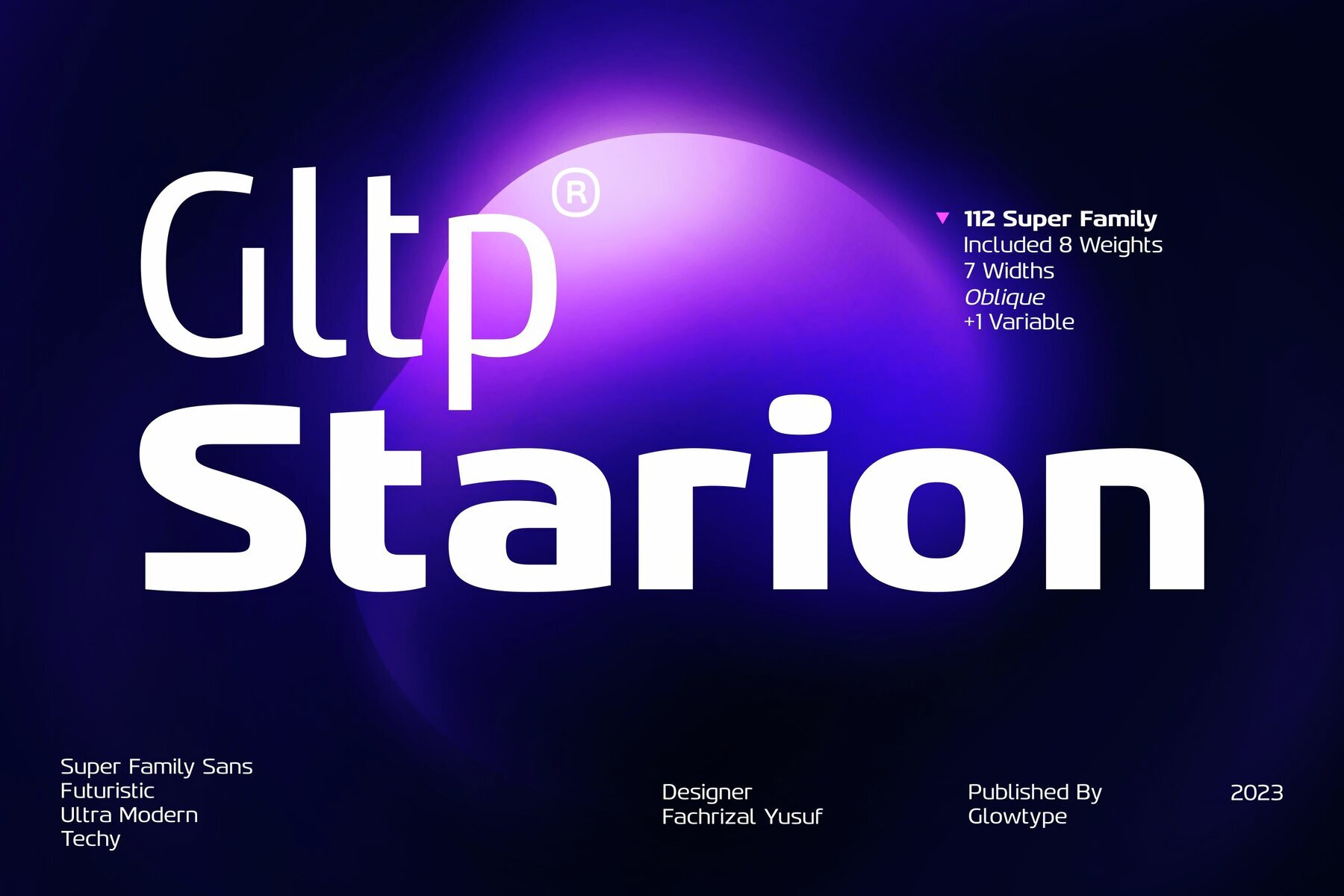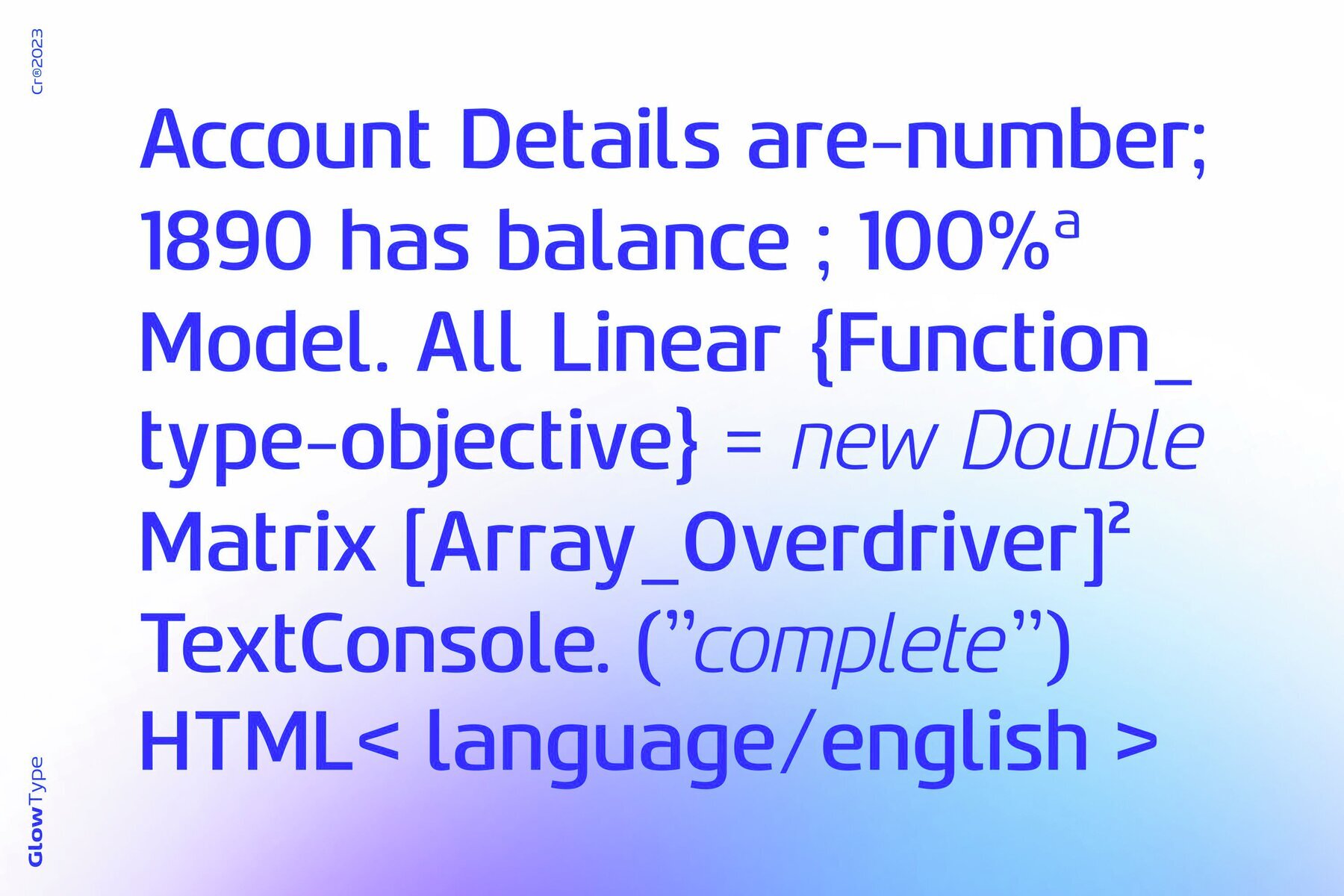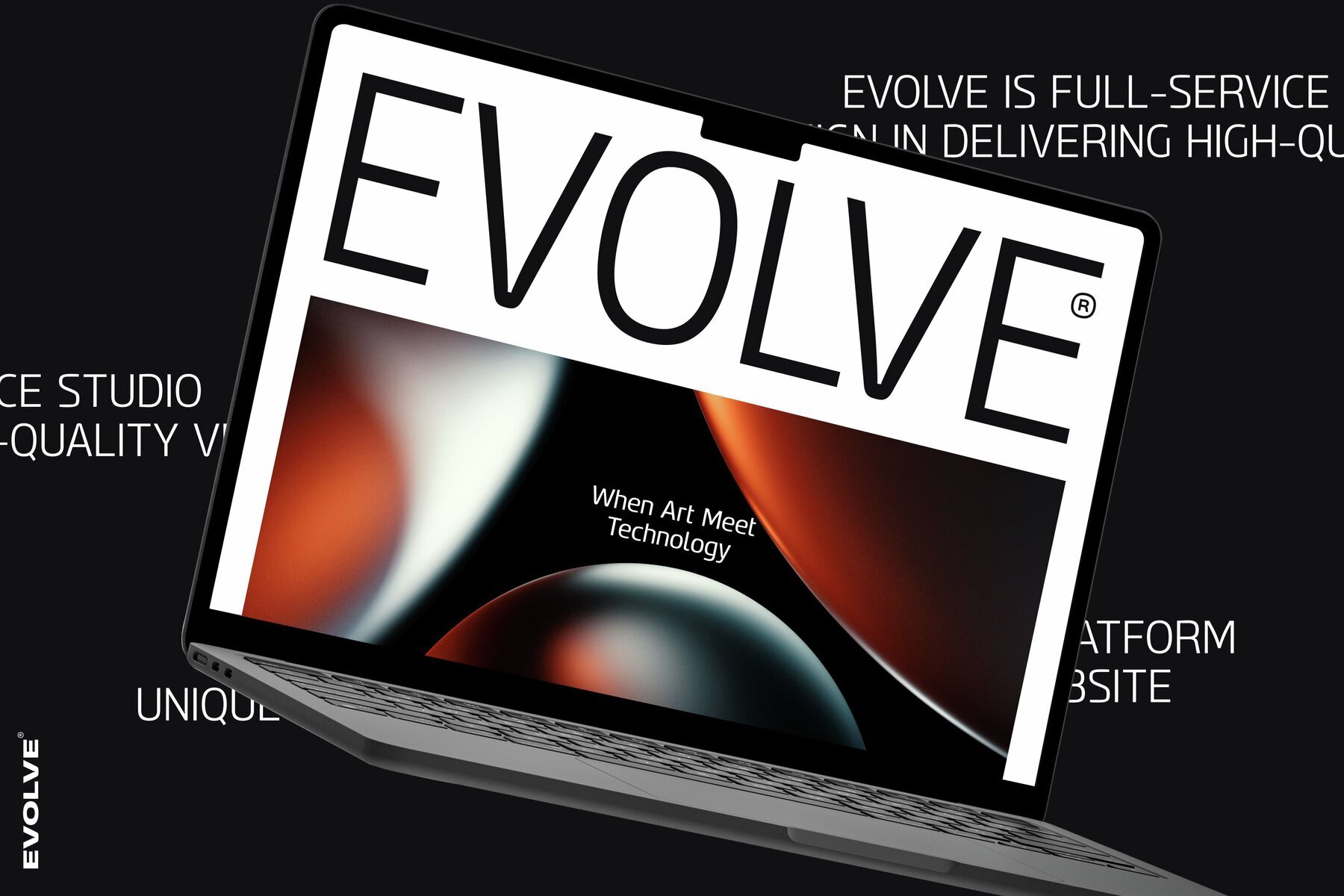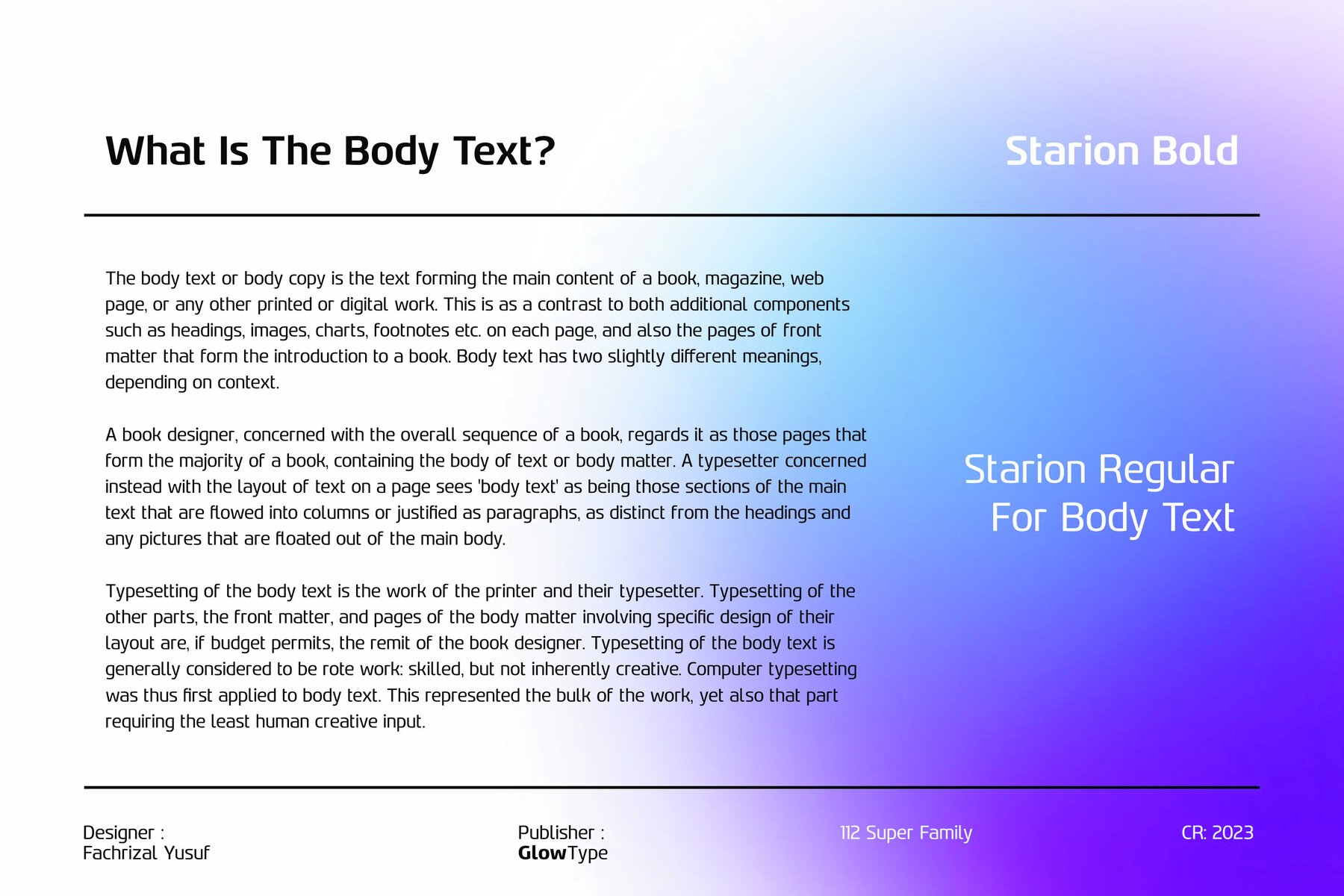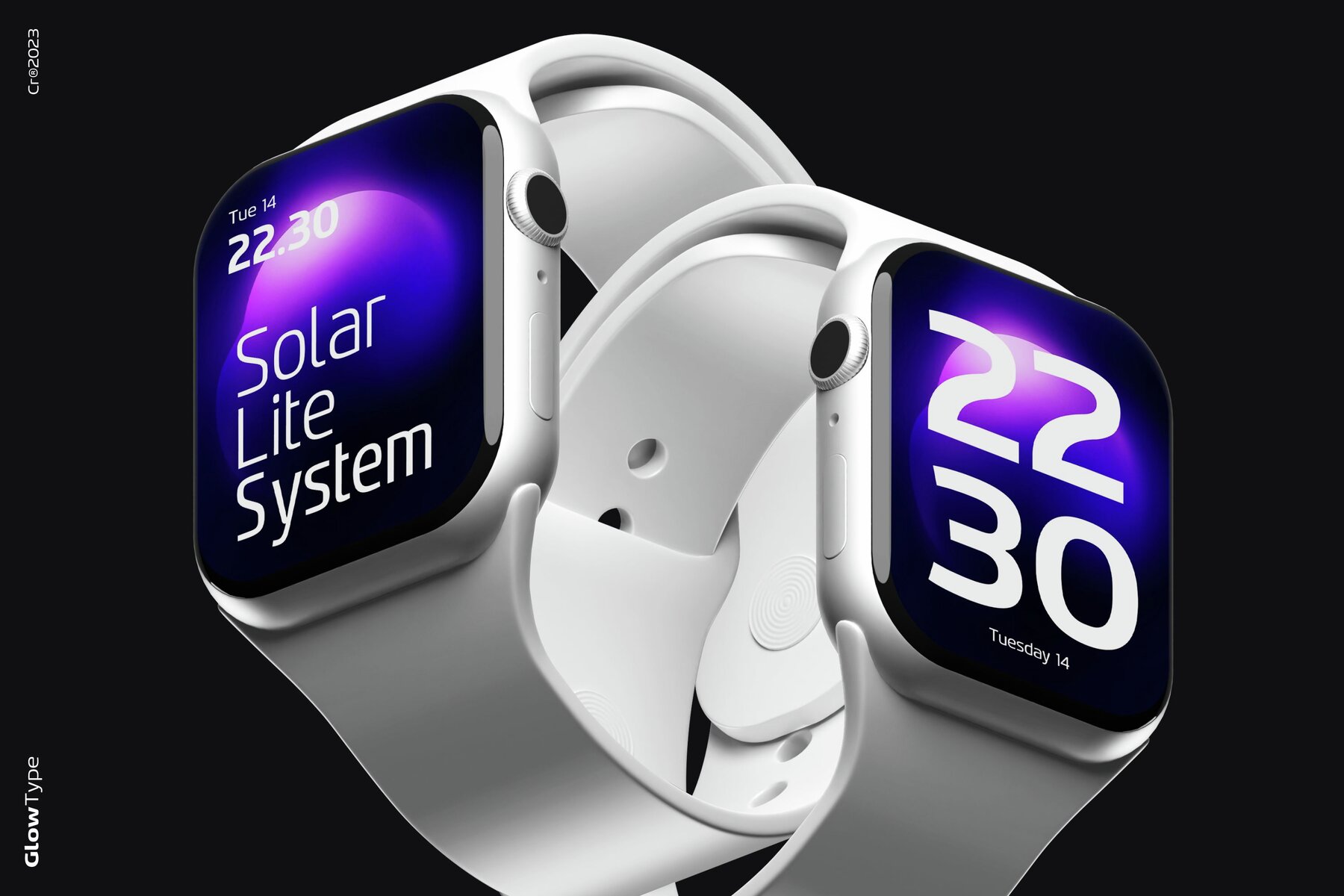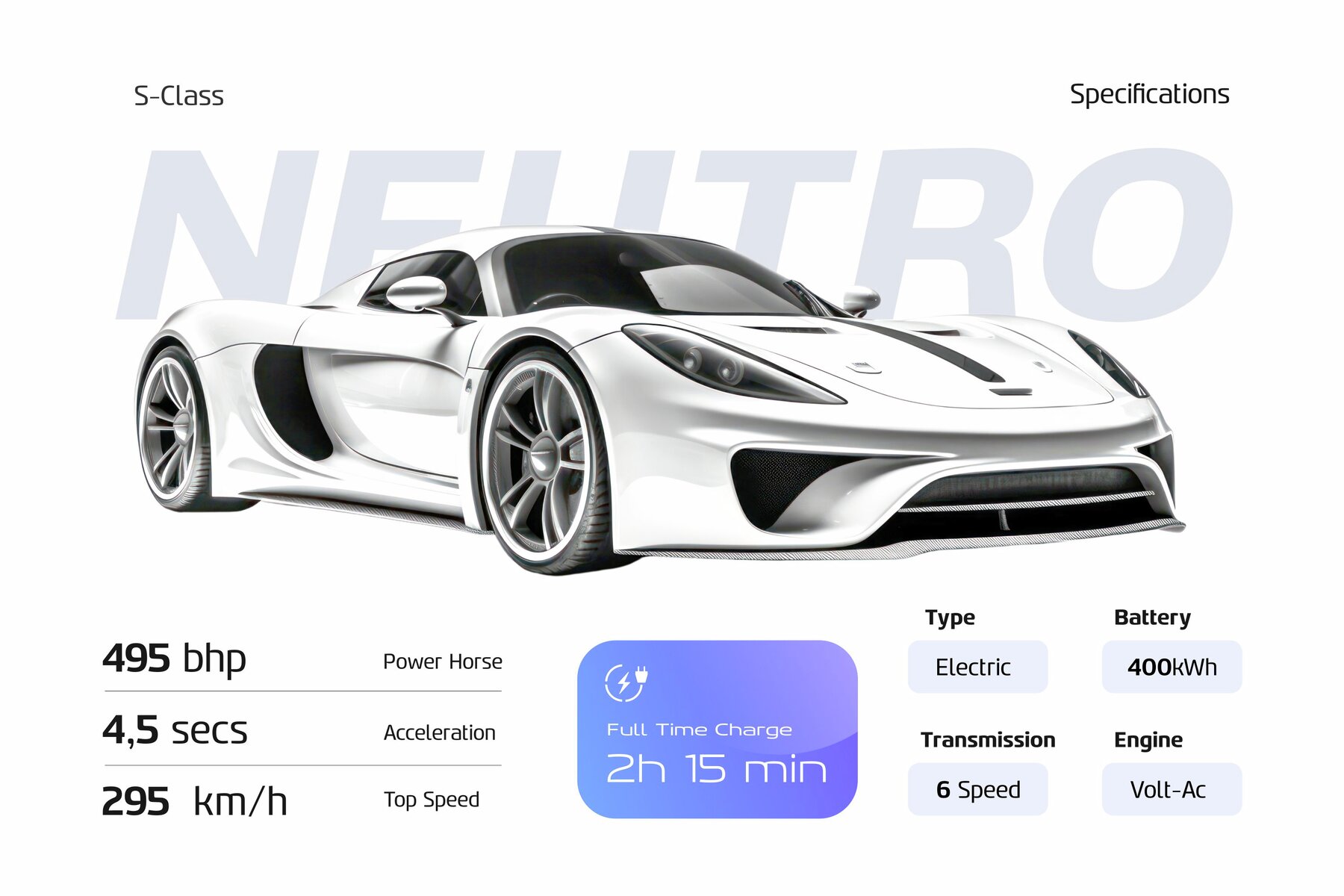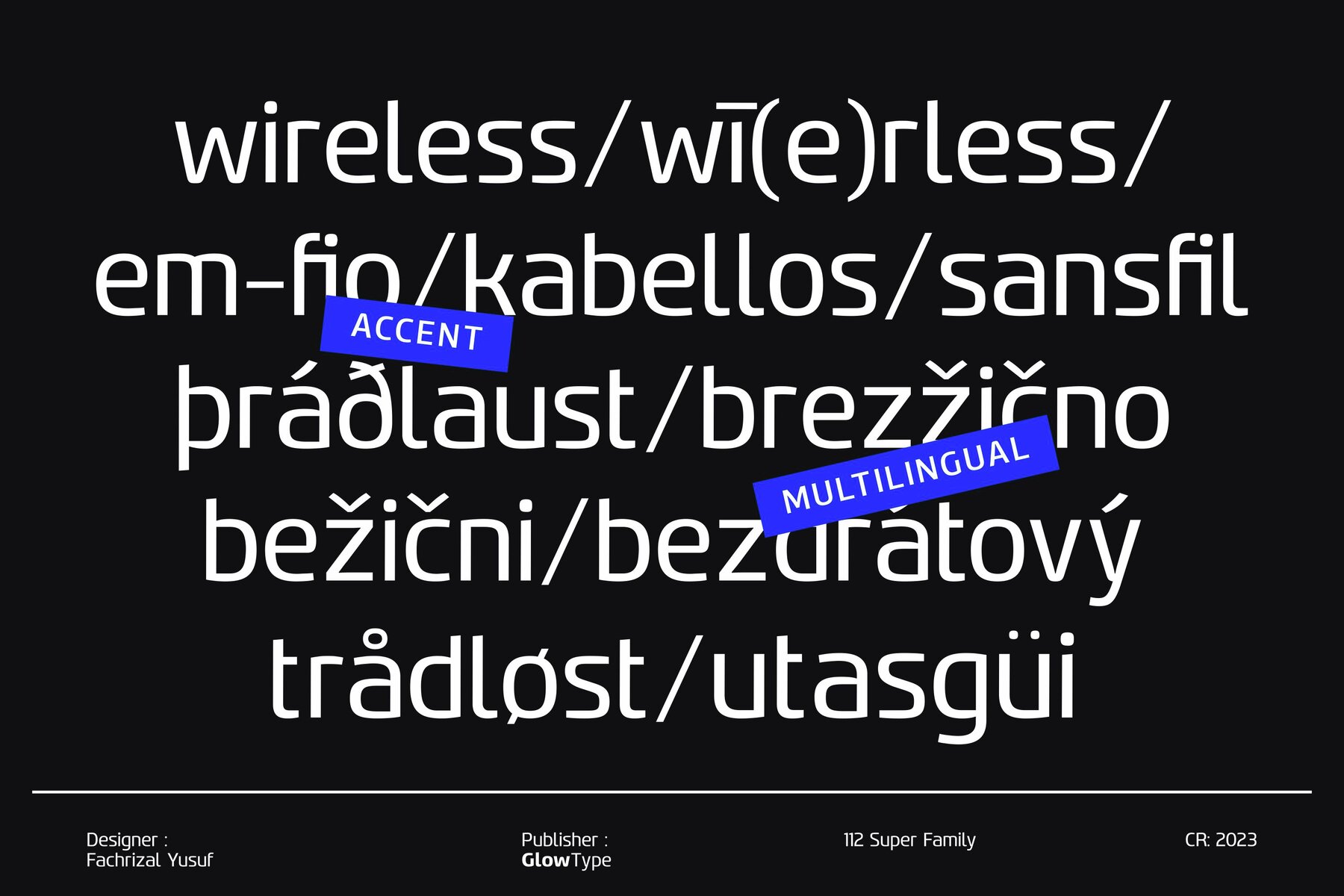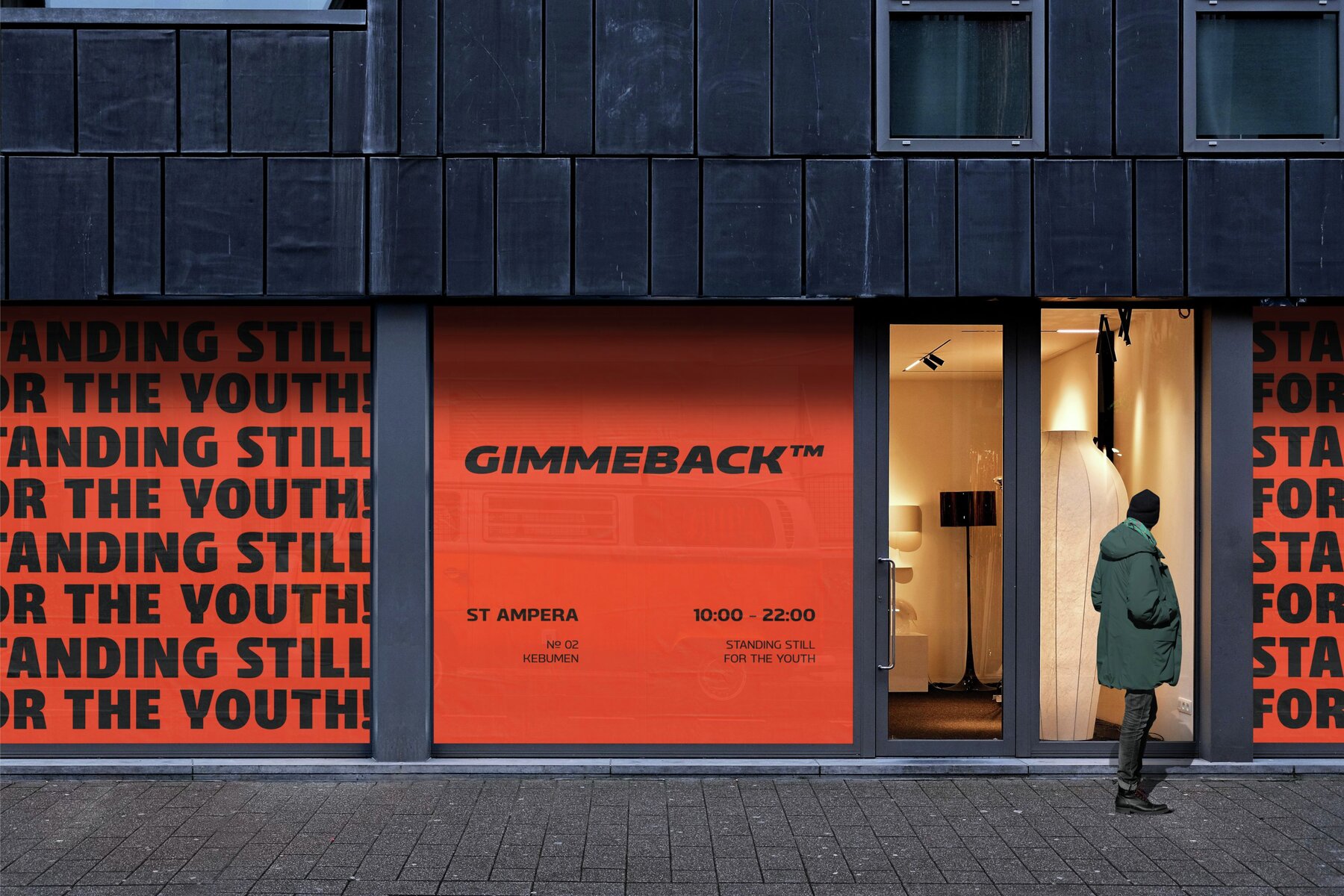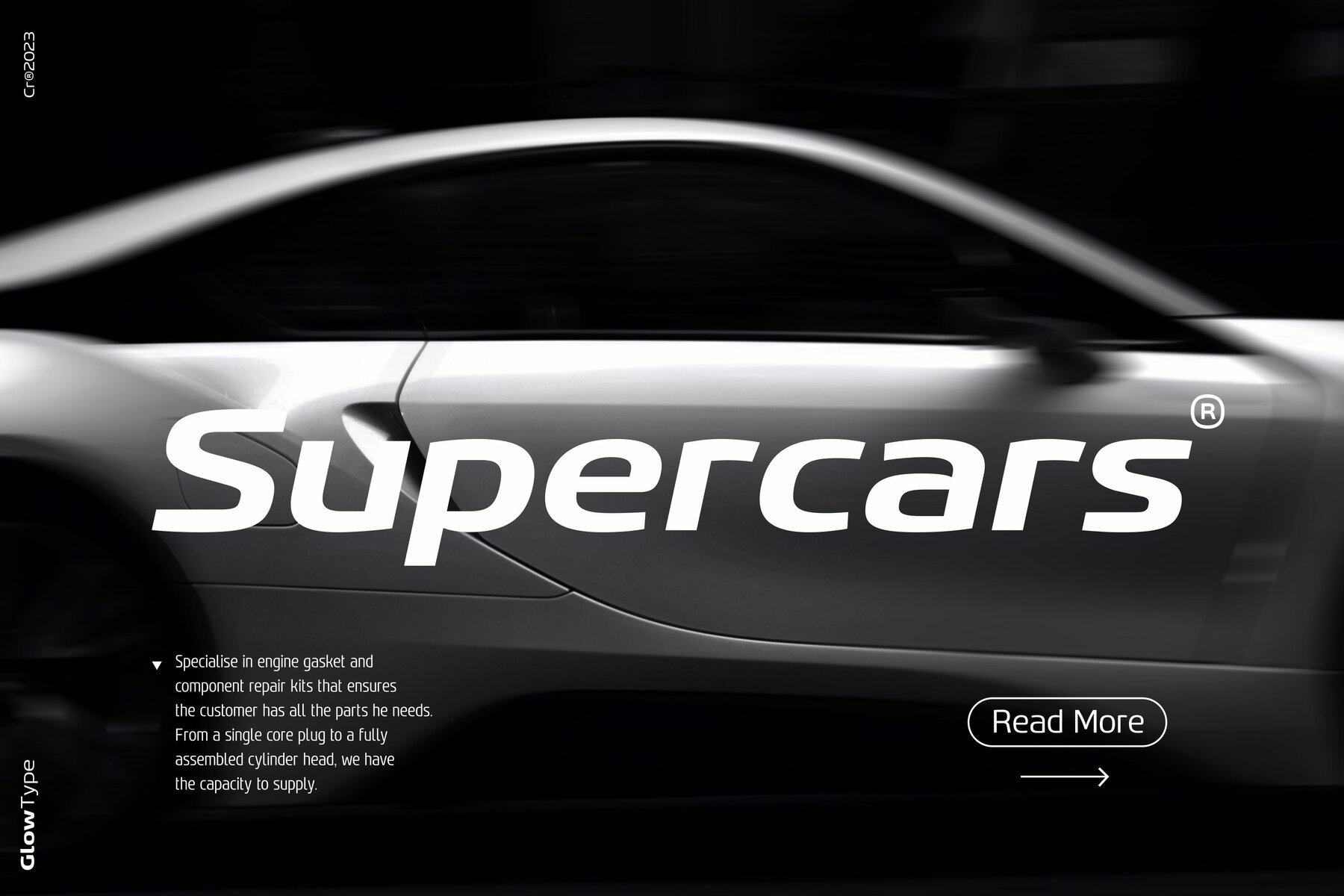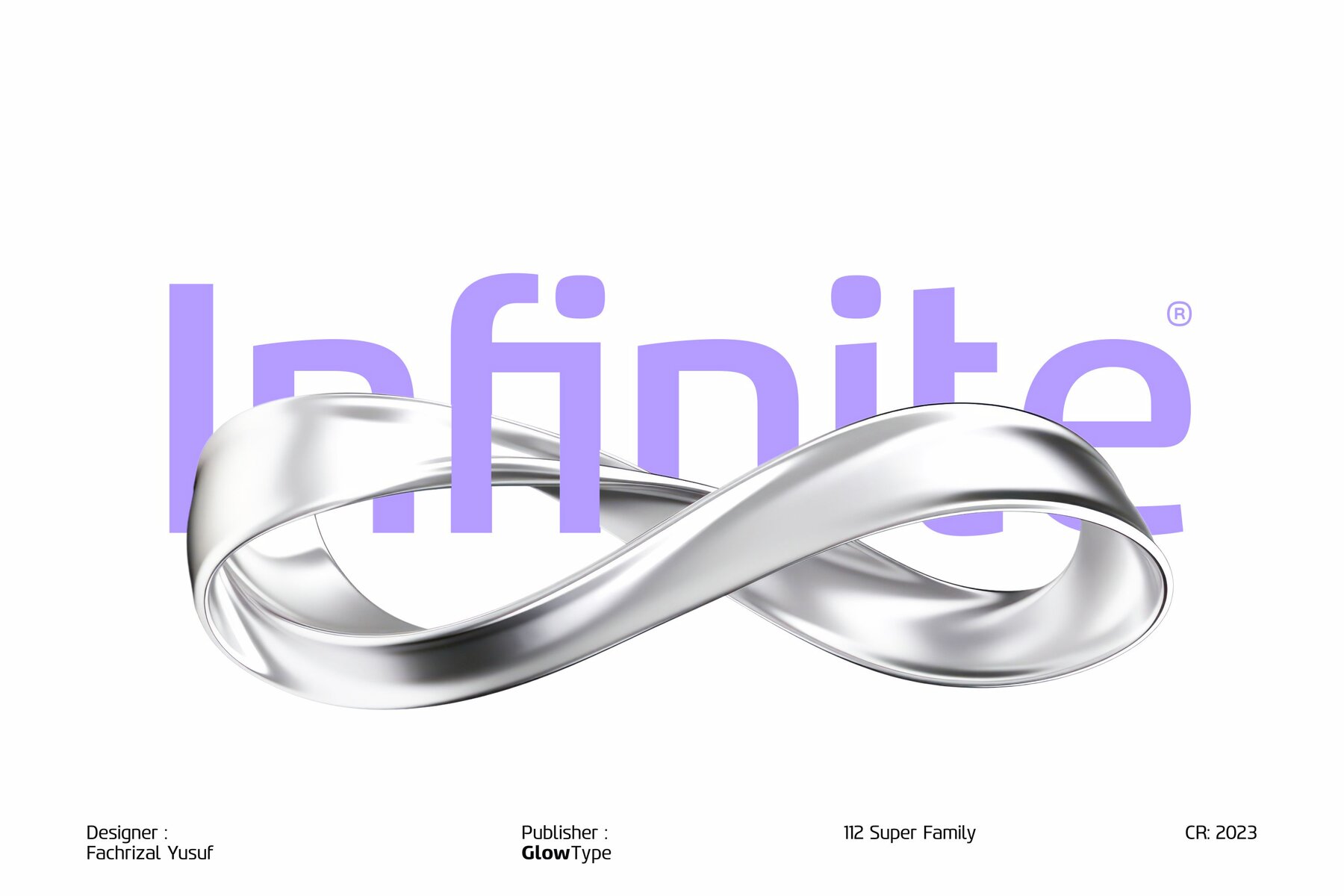
Gltp Starion Font
Gltp Starion combines open shapes and a technical vibe, crafted for those who appreciate the intersection of performance, technology, and style. Inspired by the automotive industry's demands, this ultra-modern sans-serif typeface family caters to a wide range of applications—from automotive brands to aviation, space travel, technology, and luxury watches. Experience how its futuristic and techy elements enhance the visual identity of your projects. With its comprehensive design, Gltp Starion delivers reliability and style in both digital and print formats, ensuring a sleek appearance for all applications. Embrace the blend of aesthetics and functionality this typeface family offers and elevate your design projects to new heights.Gltp Starion: The Ultimate Superfamily Sans
Versatile and Extensive Design